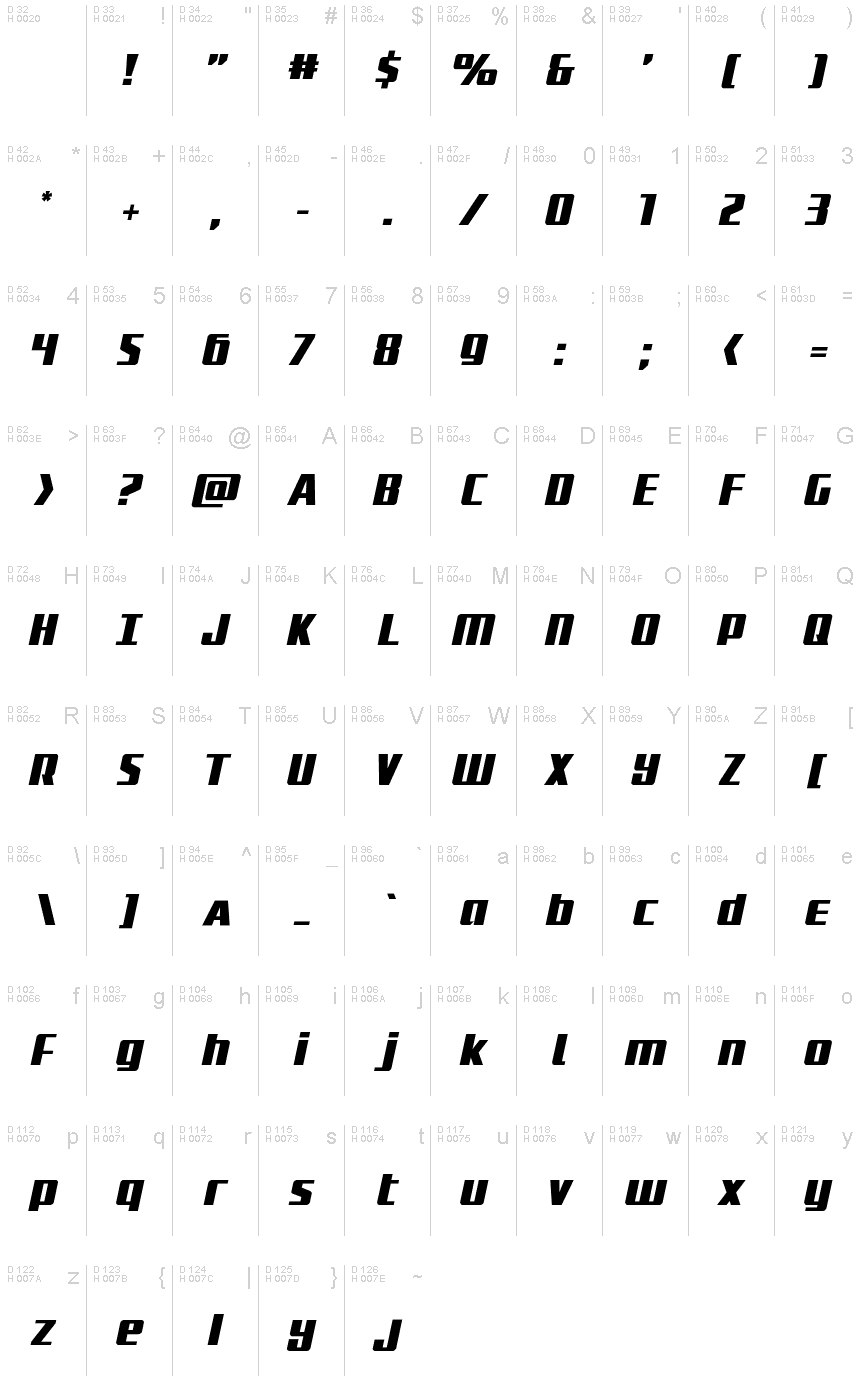
Subadai Baan Compact Italic
Looking for a bold, techno-inspired display typeface to add a futuristic edge to your designs? Look no further than Subadai Baan Compact Italic, designed by the talented Daniel Zadorozny. With its striking, angular lines and compact width, this font packs a powerful punch that's perfect for everything from high-tech websites and video game interfaces to sleek branding materials and avant-garde album covers. Whether you're looking to create a cutting-edge logo or add some serious visual interest to your latest project, Subadai Baan Compact Italic is sure to deliver the impact you're after.